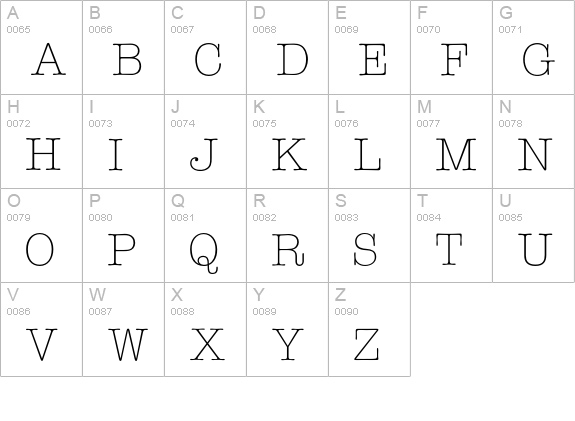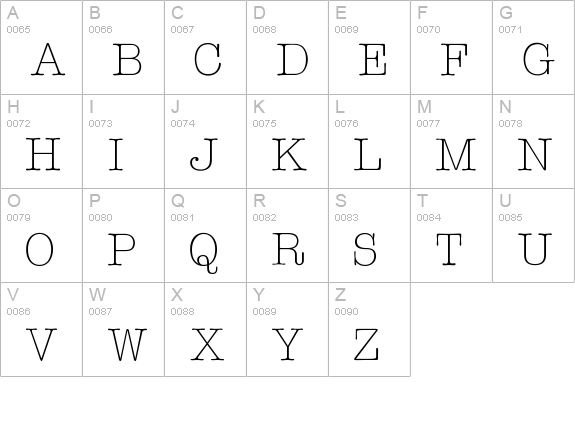
AmericanTypeLight Font Details
AmericanTypeLight is a timeless and classic font that exudes elegance and sophistication. Its clean lines and simple yet refined design make it a versatile choice for a wide range of projects. With its sleek and modern appearance, AmericanTypeLight is perfect for both print and digital applications, adding a touch of sophistication to any design. What sets AmericanTypeLight apart is not only its aesthetic appeal but also the fact that it is available for free download at FontsMarket.com. This means that you can access this high-quality font without any cost, making it an excellent choice for designers, artists, and anyone looking to elevate their creative projects without breaking the bank. Whether you're working on a branding project, a website design, or any other creative endeavor, AmericanTypeLight is sure to make a lasting impression. Download this versatile and elegant font for free today and add a touch of sophistication to your next project.